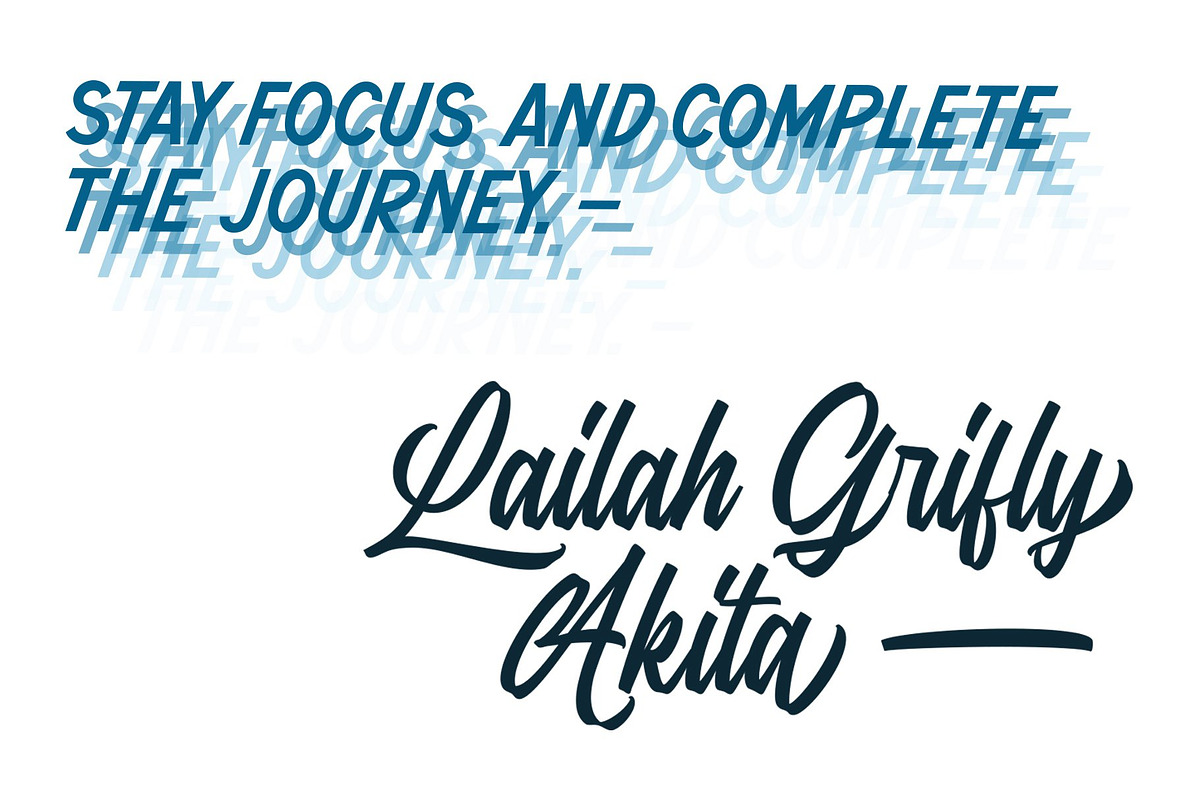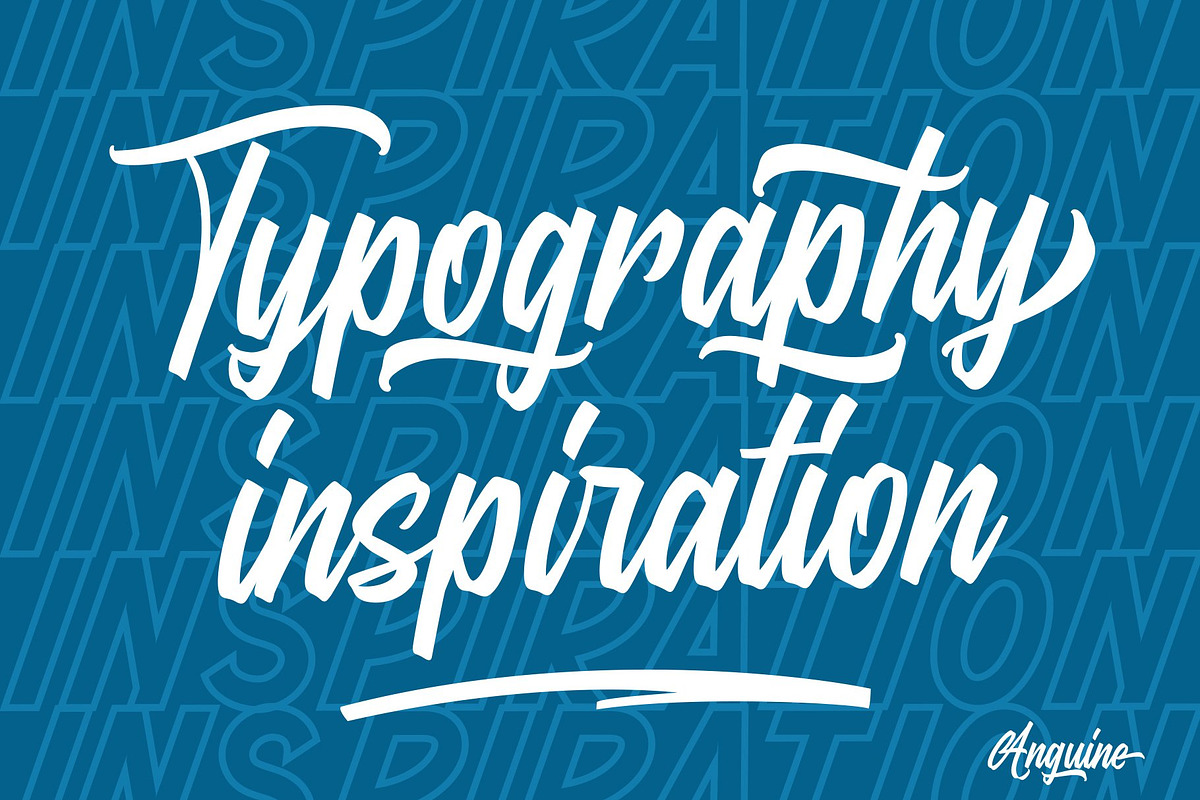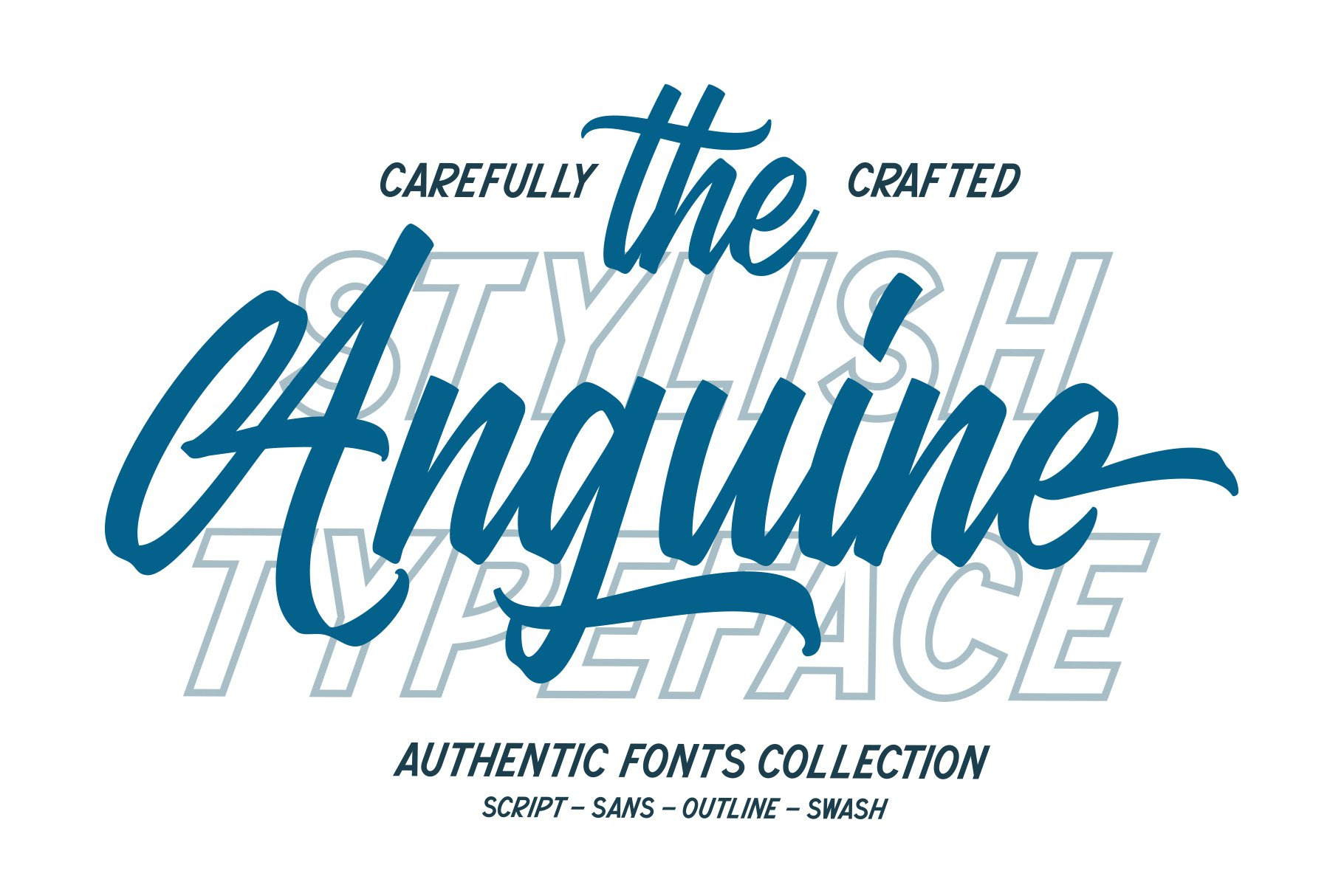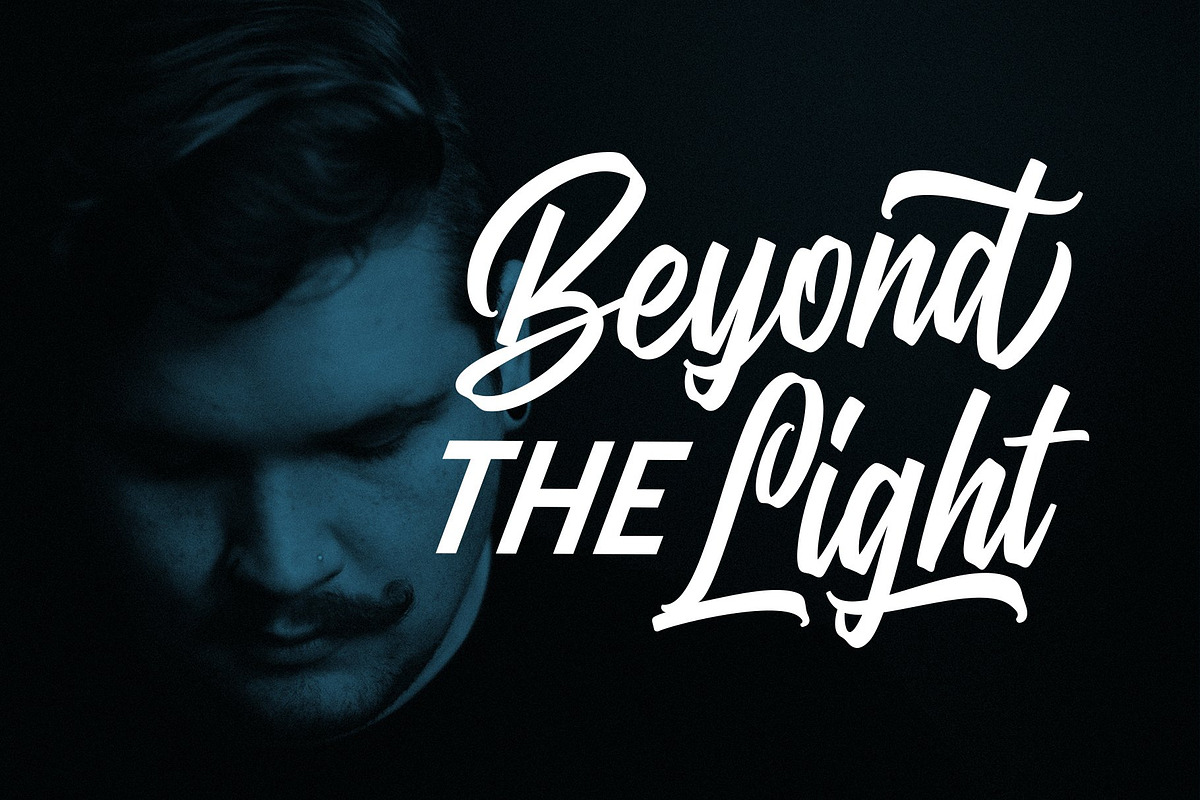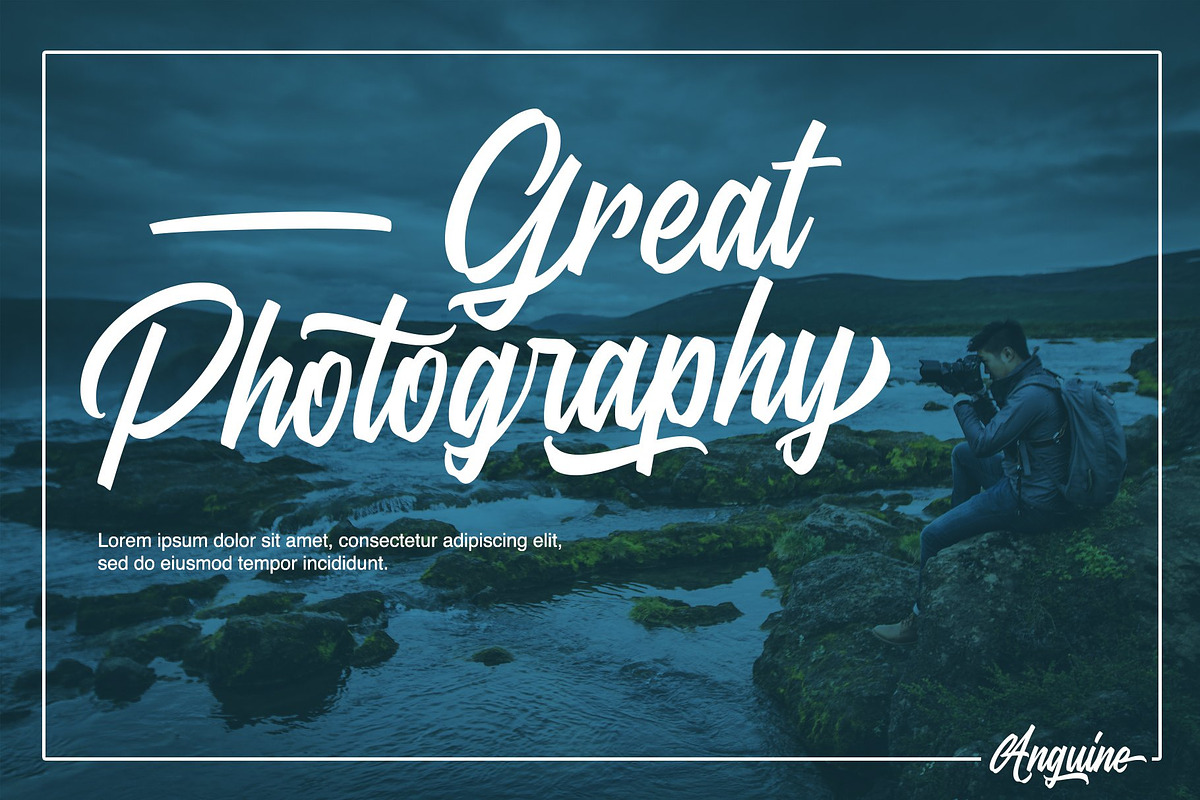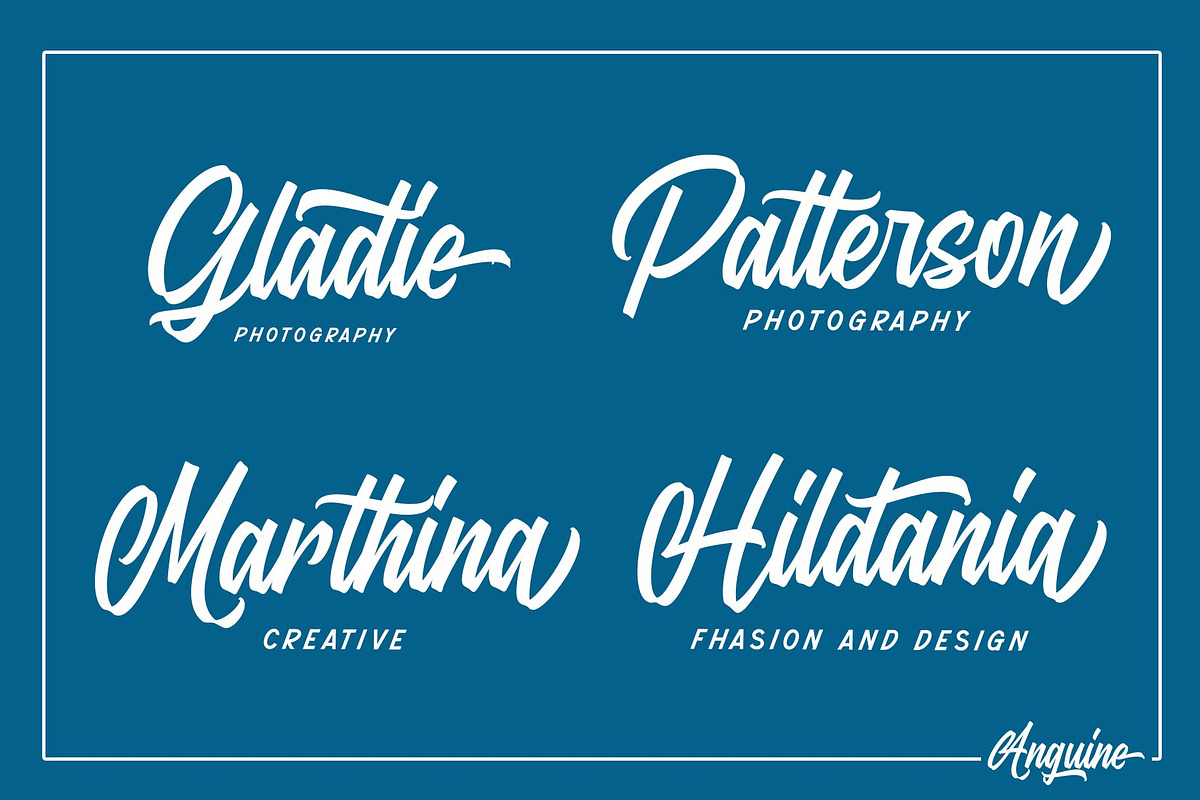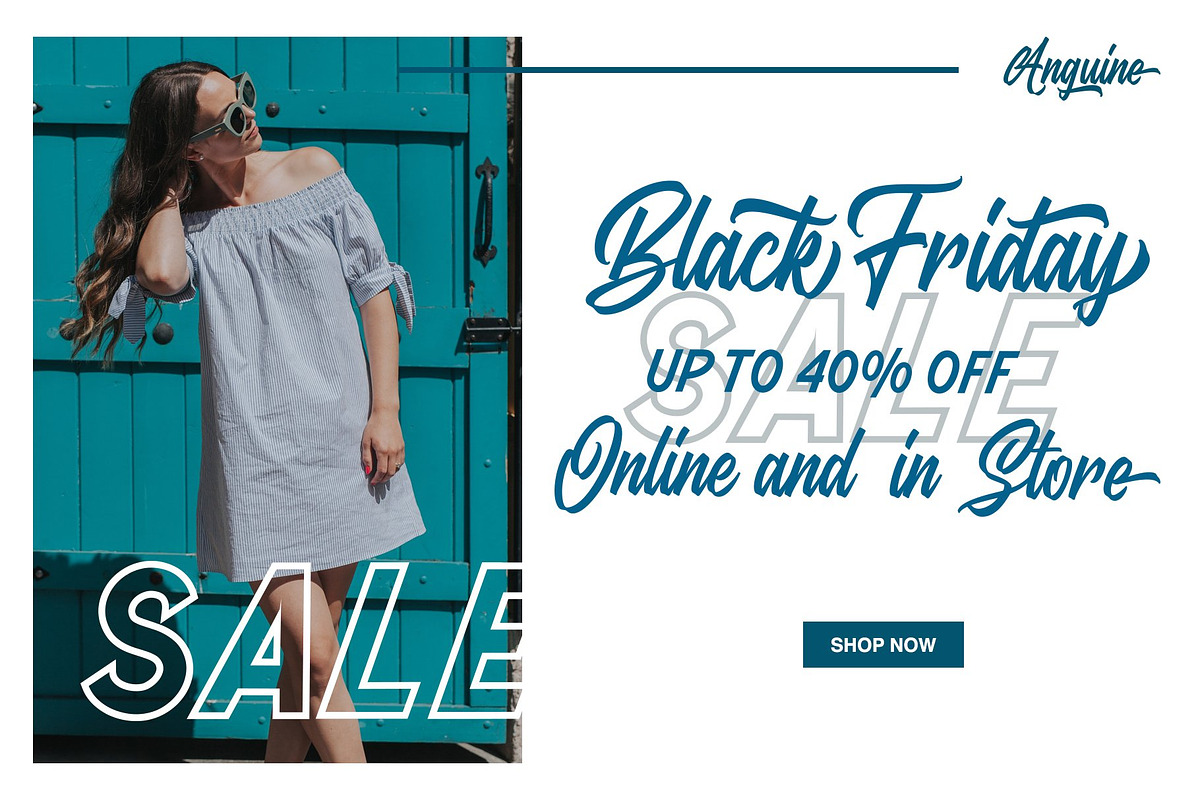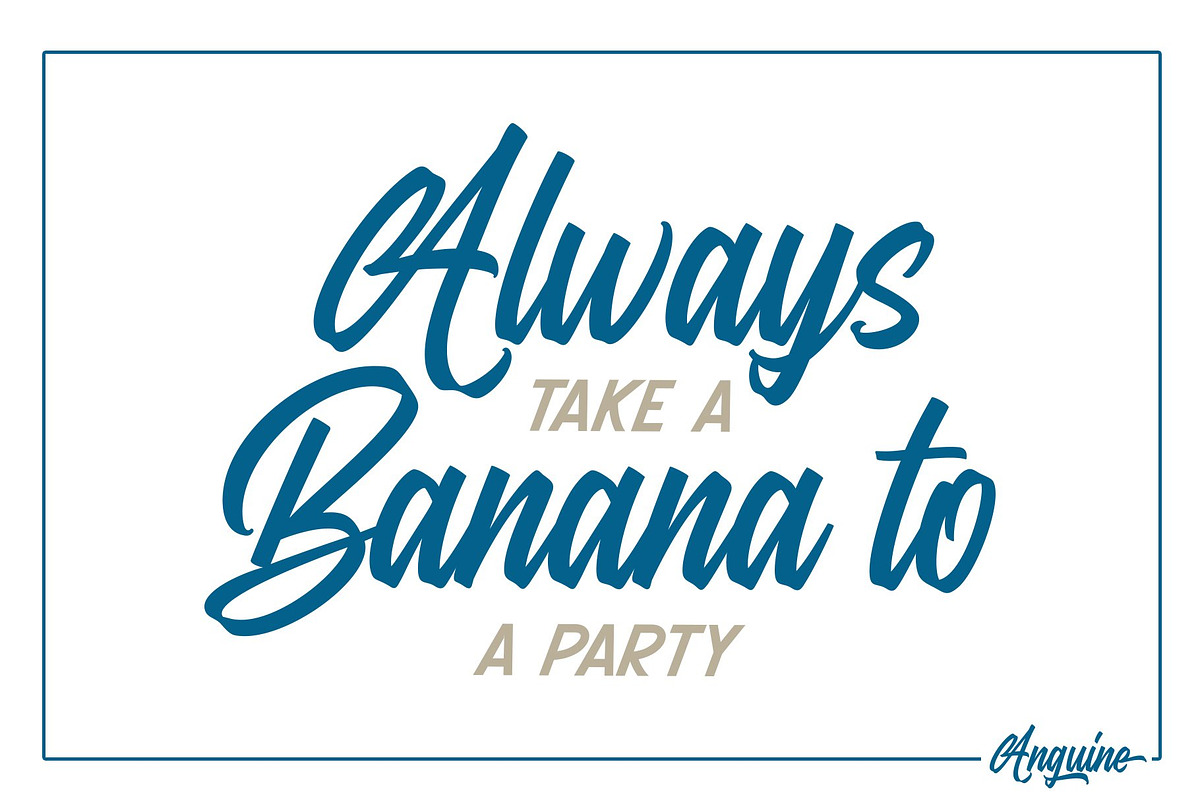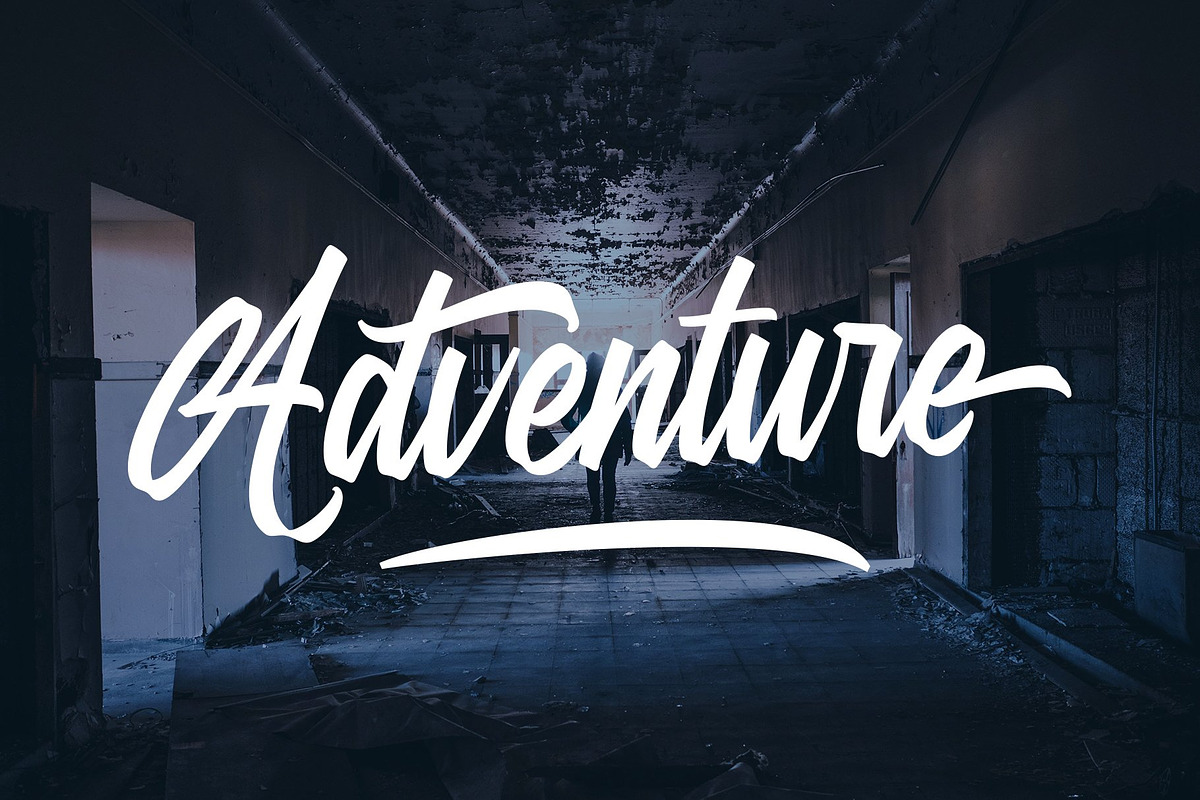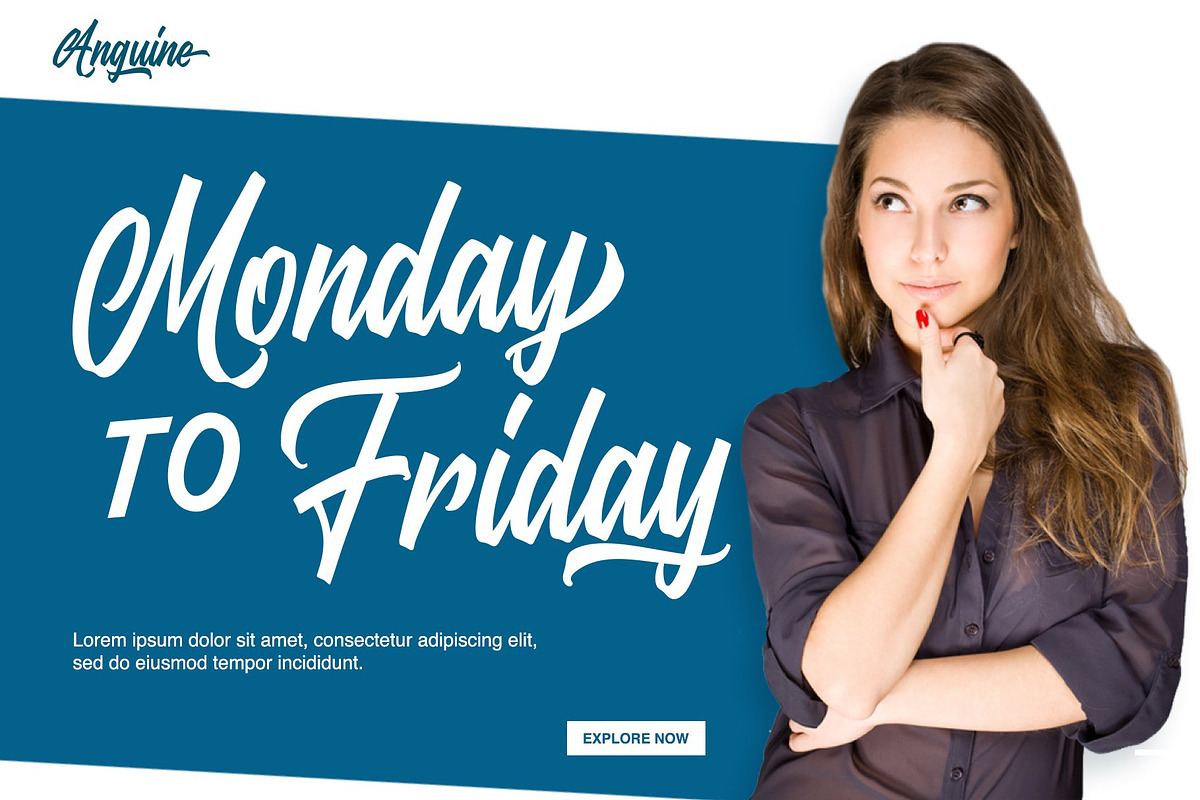
Anguine - Stylish Typeface
ANGUINE – CHIC HANDWRITTEN FONT BUNDLE
Anguine is a stylish and versatile 4-font family designed for projects that demand charm, elegance, and creative flexibility. This comprehensive bundle provides everything you need to build a cohesive brand identity—from clean and minimal to bold and decorative—all from a single, unified typeface collection.
The Anguine family features four distinct styles engineered to work together seamlessly. Whether you are pairing the flowing, organic script with the clean lines of the sans-serif or using the sleek outline and swash variants for high-impact decorative accents, this bundle eliminates the guesswork of font pairing and gives your designs a professional, curated feel.
- Pairing: Use Anguine Script for your primary headings and Anguine Sans for sub-headers or body text to create instant typographic hierarchy.
- Layering: Overlay Anguine Outline on top of the Script or Sans versions with a slight offset to create a trendy, multidimensional "sticker" or "shadow" effect.
- Decorating: Use the Swash font to add elegant tails and flourishes to the beginning or end of your words for a custom, hand-drawn finish.
PERFECT FOR
- Complete Brand Identities: Developing wordmarks, business cards, and packaging that all speak the same visual language.
- Wedding Stationery: Pairing the script for names and the sans for event details on a single, elegant suite.
- Social Media & Digital Content: Using the outline and swash variants to create eye-catching Instagram stories and quote graphics.
- Fashion & Boutique Branding: Sophisticated identities for lifestyle brands, apothecaries, and creative studios.